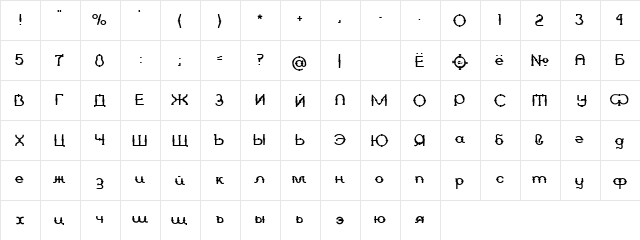
Ograda Normal
Design Context for Ograda Typeface
Ograda is a composed and adaptable typeface that performs quietly and consistently across a wide range of design contexts.